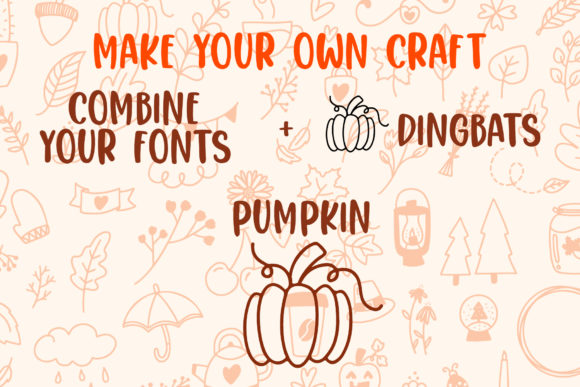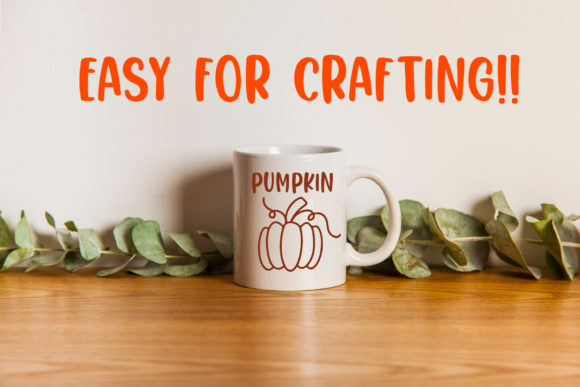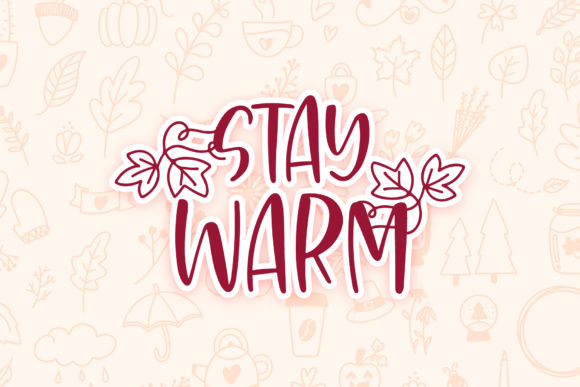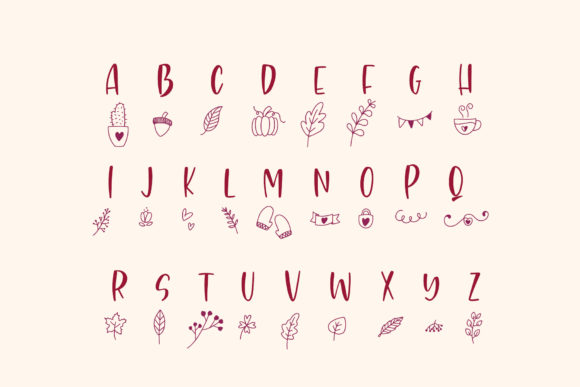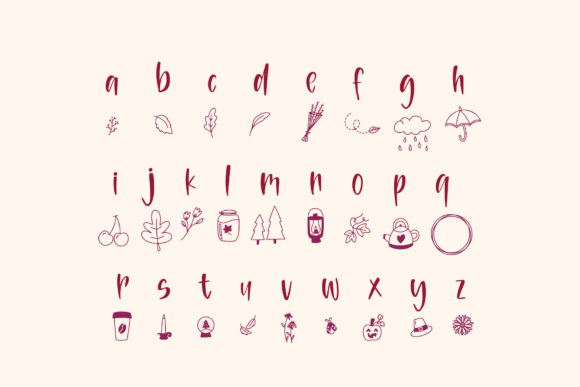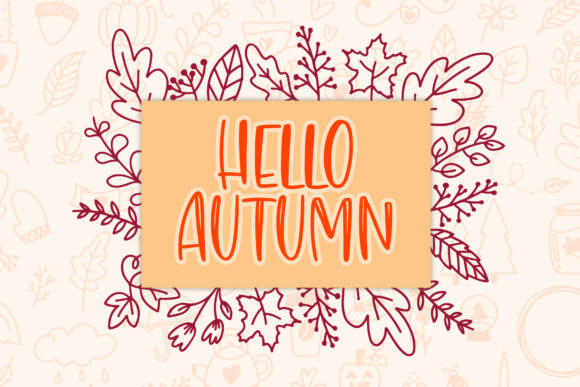
The Perfect Font for a Cozy Autumn
As the leaves start to change colors and the air gets crisper, I find myself drawn to the warm, inviting tones of the season. There’s something about the smell of pumpkin spice and the sound of leaves crunching beneath my feet that sparks my creativity and makes me want to get designing. This year, I’m excited to share with you one of my favorite fonts for capturing the essence of autumn: the Autumn Font.
This cute, unique, and incredibly useful dingbats font is the perfect addition to any fall design. Whether you’re creating invitations, social media graphics, or even just a simple card, the Autumn Font brings a level of whimsy and charm that’s sure to elevate your designs to the next level.
For designers, the Autumn Font is a valuable tool in their arsenal, offering a fresh and creative way to add texture and interest to their work. Its versatility makes it a great choice for a wide range of projects, from seasonal promotions to everyday designs.
Autumn Font Key Features
- Unique Characteristics: The font features intricate, hand-drawn designs with a natural, earthy feel, perfect for autumn-themed designs and materials.
- Font Style: The font comes in both regular and italic styles, providing versatility for designers and typographers.
Autumn Font Review
When I first laid eyes on Autumn Font, I was immediately drawn in by its warm and inviting aesthetic. The ✨ intricate details and natural feel of the font had me thinking of cozy afternoons spent surrounded by fallen leaves and the gentle crunch of wood beneath my feet. ✨
One of the standout features of Autumn Font is its versatility. It can be used for a wide range of projects, from rustic wedding invitations to modern branding materials. The font is also highly customizable, with a variety of weights and styles available to suit your needs. ✨
- ✨ Natural, organic feel that evokes the cozy atmosphere of autumn
- ✨ Versatility in terms of project applications and customization options
- ✨ Wide range of weights and styles available
- ⚠️ Some characters may appear slightly distorted or irregular, particularly at smaller font sizes
- ⚠️ Limited support for non-Latin languages
Overall, I would say that Autumn Font is a solid choice for designers looking to add a touch of warmth and personality to their projects. While it may have some limitations, the font’s unique charm and customization options make it a great option for a wide range of applications.
Autumn Font is perfect for adding a touch of fall magic to your Canva designs, such as invitations, posters, and social media graphics.
Autumn Font is ideal for creating custom graphics, logos, and typography-based designs in Adobe Photoshop and Illustrator.
Autumn Font is perfect for adding a seasonal touch to your PowerPoint presentations and Word documents, such as reports, newsletters, and certificates.
Autumn Font is commonly used for:
- Fall-themed designs, such as invitations, posters, and social media graphics.
- Custom graphics, logos, and typography-based designs in Adobe Photoshop and Illustrator.
- Seasonal presentations, reports, and documents in PowerPoint and Word.